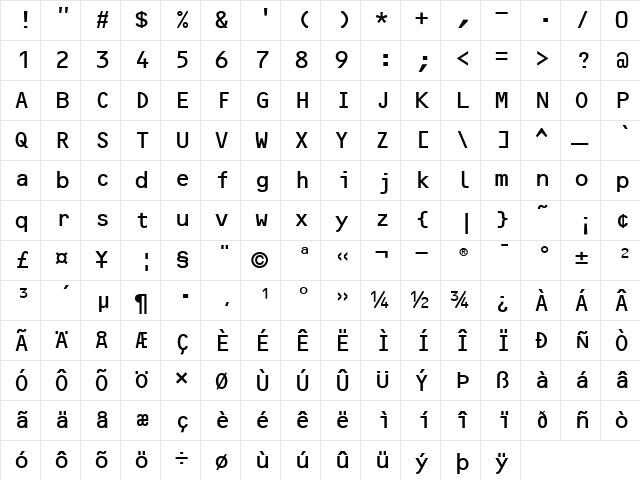
OCRBAlternate Roman
Design Context for OCRBAlternate Typeface
OCRBAlternate offers clean, dependable letterforms without strong stylistic allegiance, making it a practical choice for designers who need flexibility.
Pro Tip: Pair OCRBAlternate with a font of contrasting weight or personality to build a more expressive typographic hierarchy.